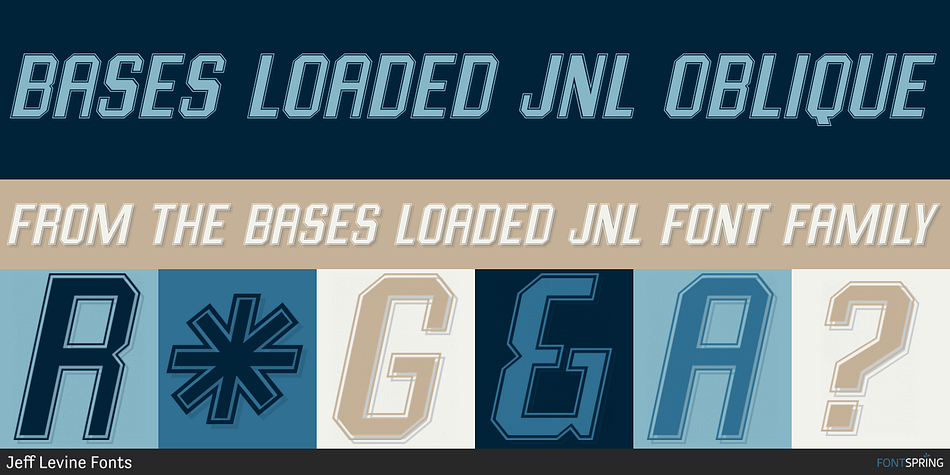
BASES LOADED JNL OBLIQUE
Designed by Jeff Levine, Bases Loaded JNL is a display sans font family. This typeface has two styles and was published by Jeff Levine Fonts.
Bases Loaded JNL is a contour outline variant of Ebbets JNL, which was, in turn, a stylized variant of the retro-inspired Base Runner JNL.  The design is available in both regular and oblique versions.